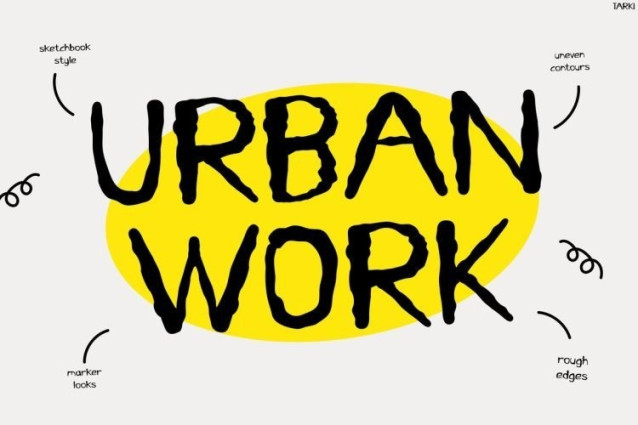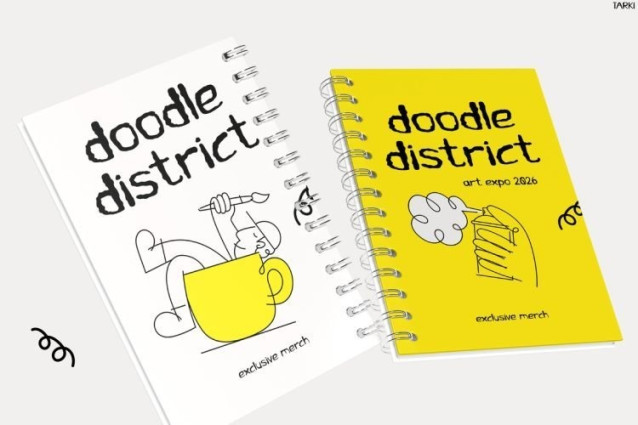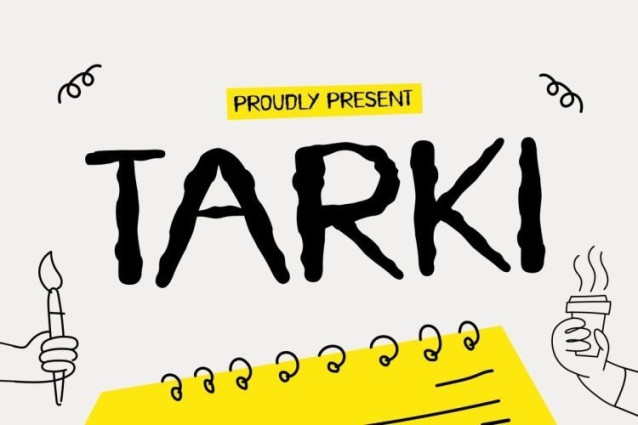
Tarki Font
Tarki Font an expressive handwritten look with rough strokes, playful imperfections, and an authentic doodle-inspired character. Furthermore, the font captures the spontaneous feel of hand-drawn lettering, making every design look more personal and artistic. Because of its organic shapes and slightly uneven structure, Tarki delivers a bold creative personality that instantly stands out. In addition, the casual handwritten aesthetic creates a relaxed and approachable vibe while maintaining strong readability. As a result, posters, branding, social media graphics, and creative campaigns feel more unique, energetic, and memorable.
Moreover, Tarki perfectly blends urban creativity with handcrafted charm, so it works beautifully for projects that need a fresh and unconventional look. Whether you are designing art festival posters, creative branding, event promotions, or lifestyle content, this font adds character and authenticity to every layout. Therefore, Tarki is an excellent choice for designers who want typography that feels expressive, modern, and full of artistic freedom.